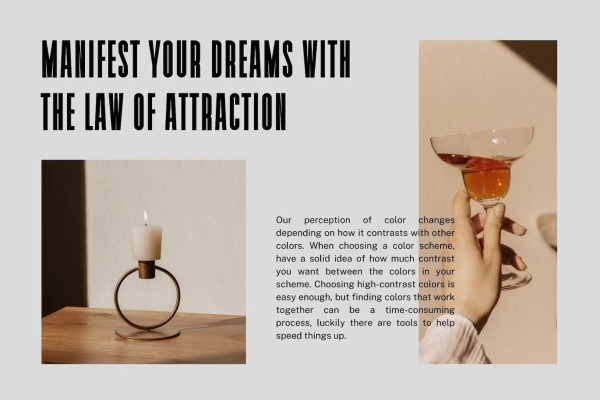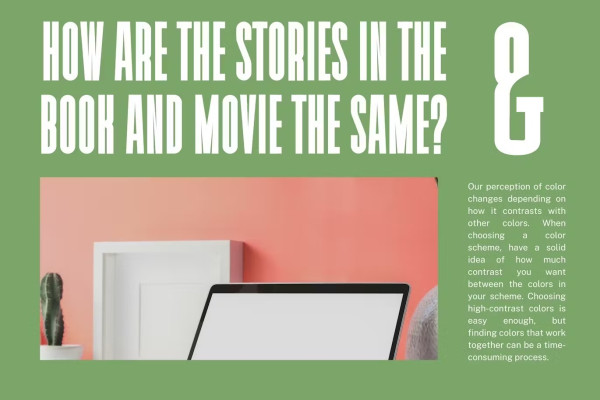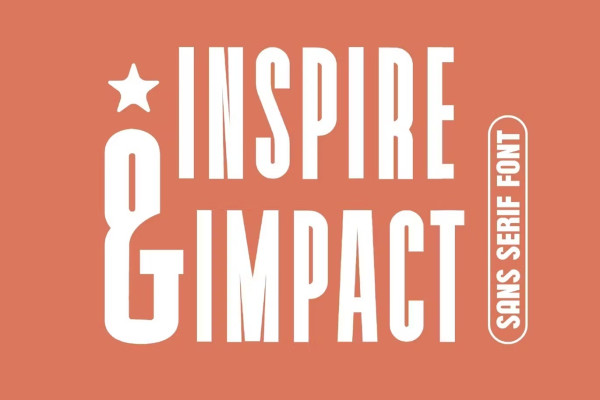
Inspire Impact Font
Inspire Impact Font, inspired by famous minimalist logo, perfect for designing templates, brochures, videos, brand ads, logos, invitations, layouts, elegant crafts, beauty designs, etc.